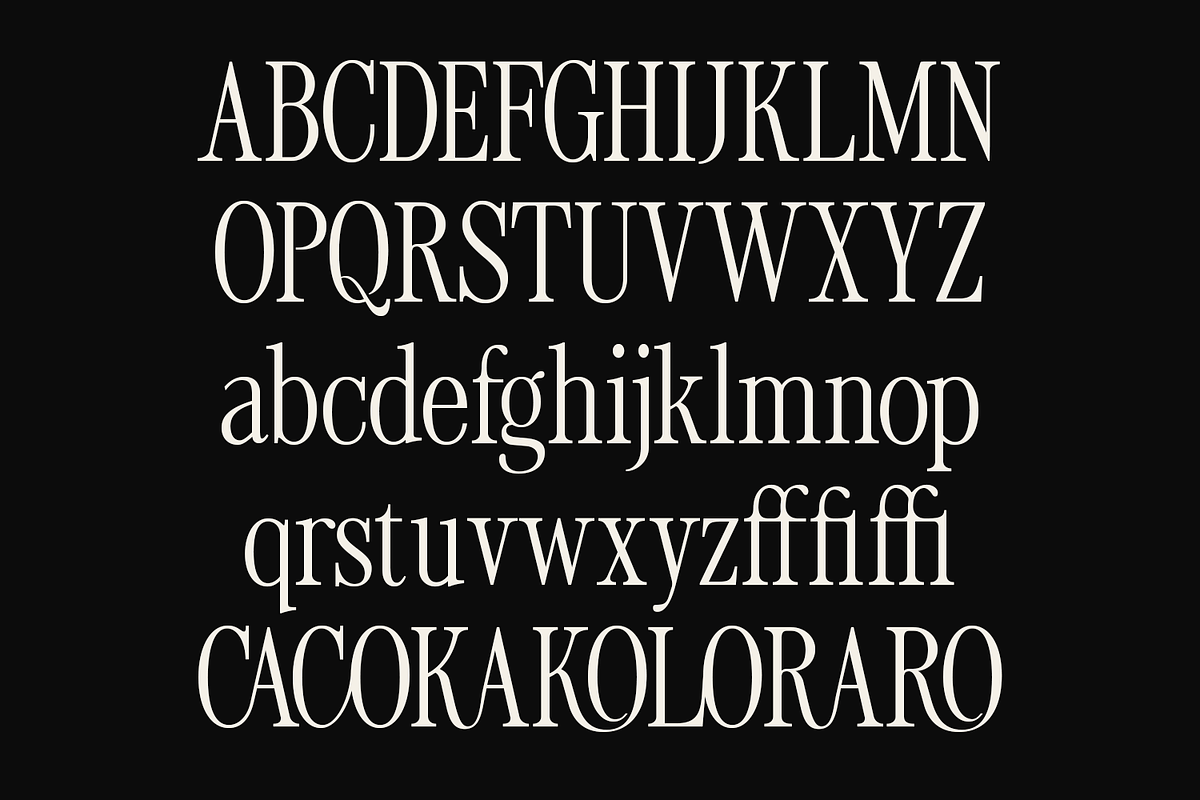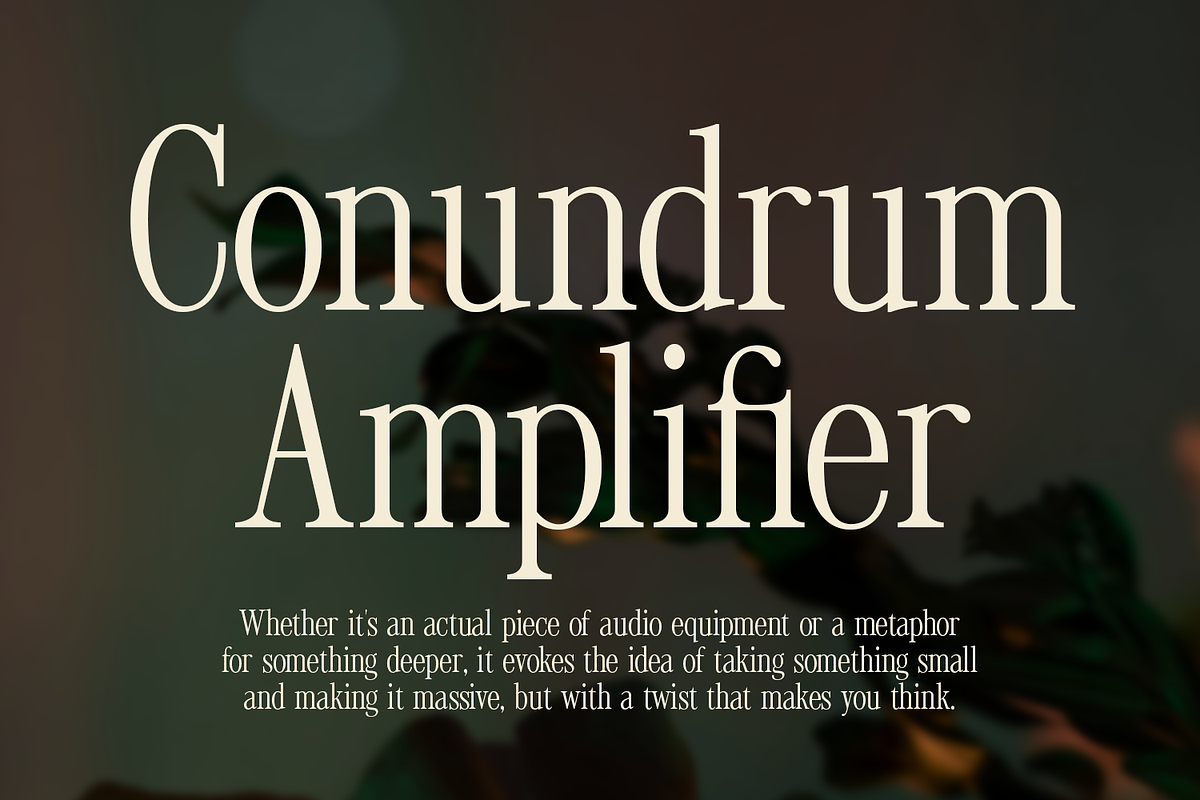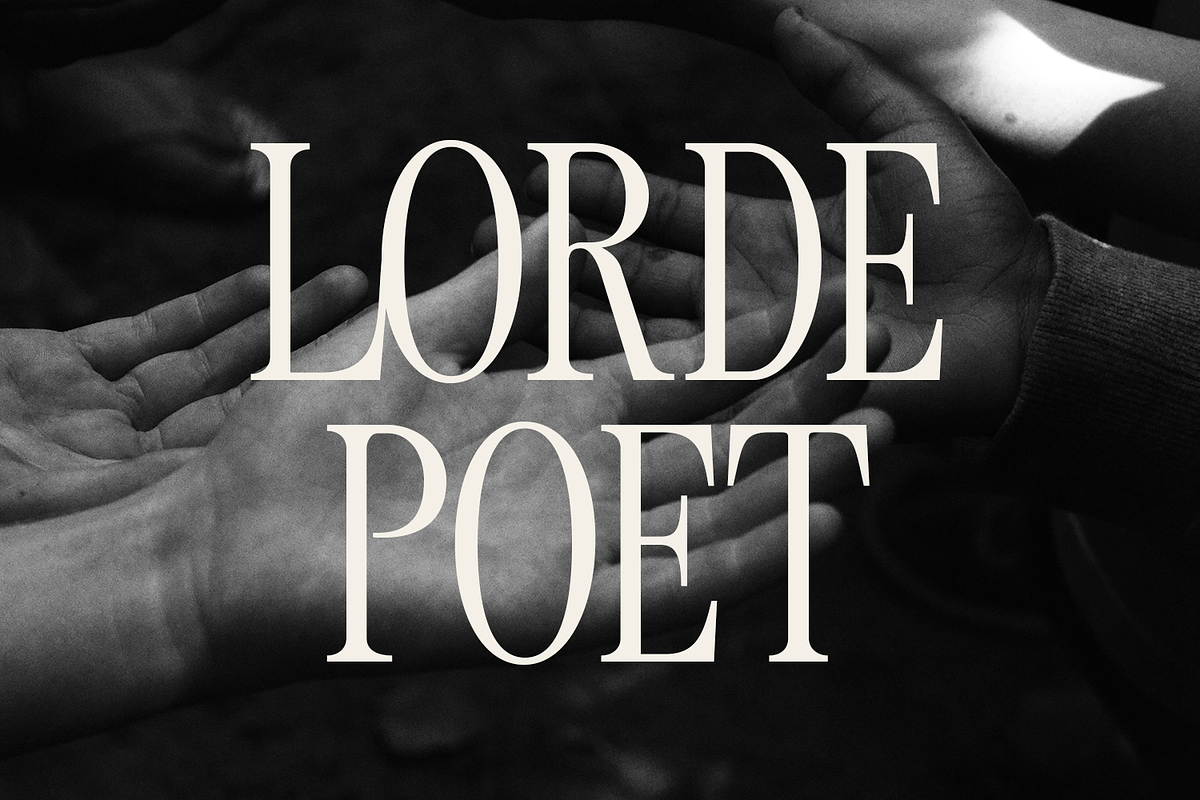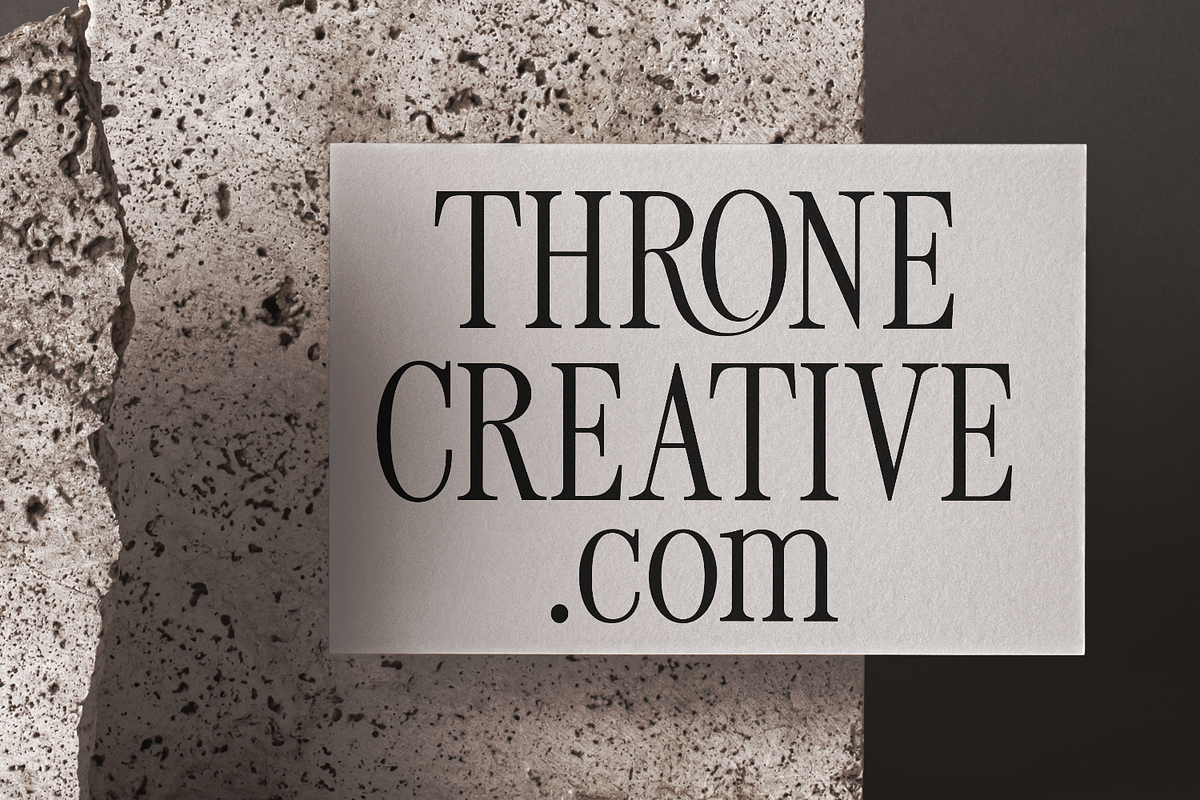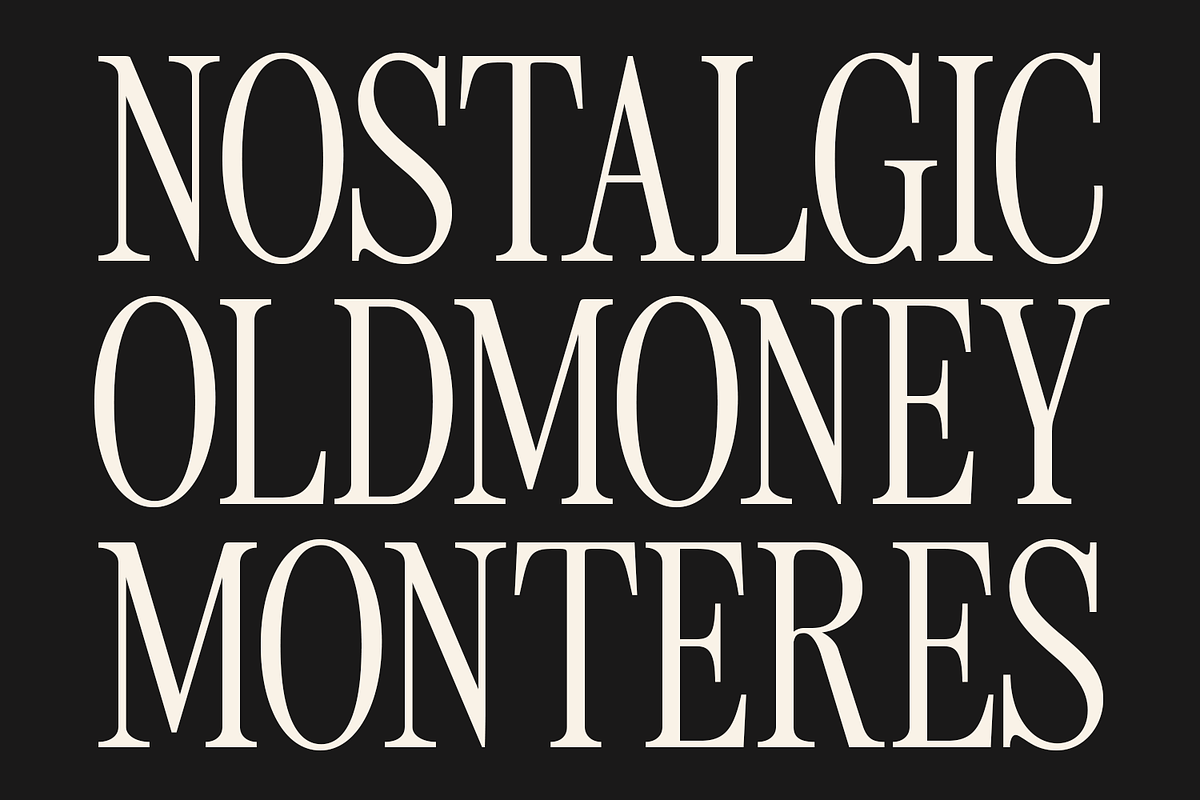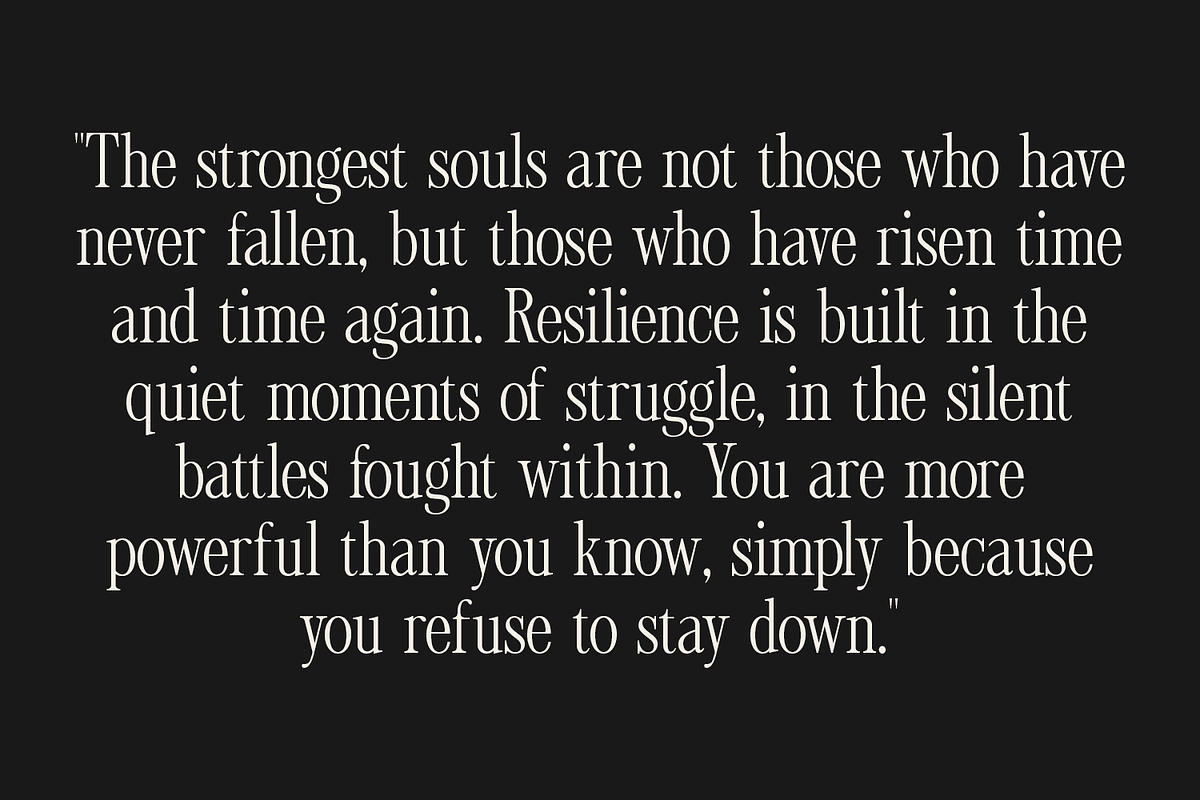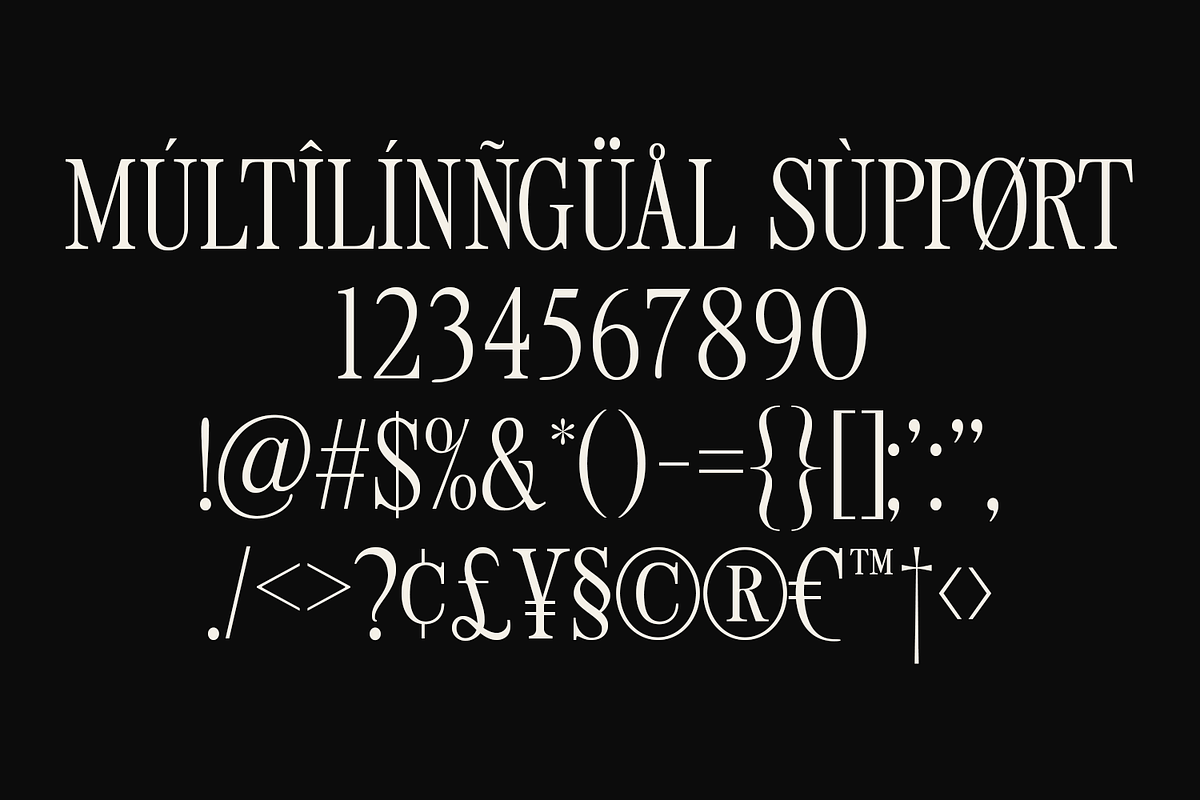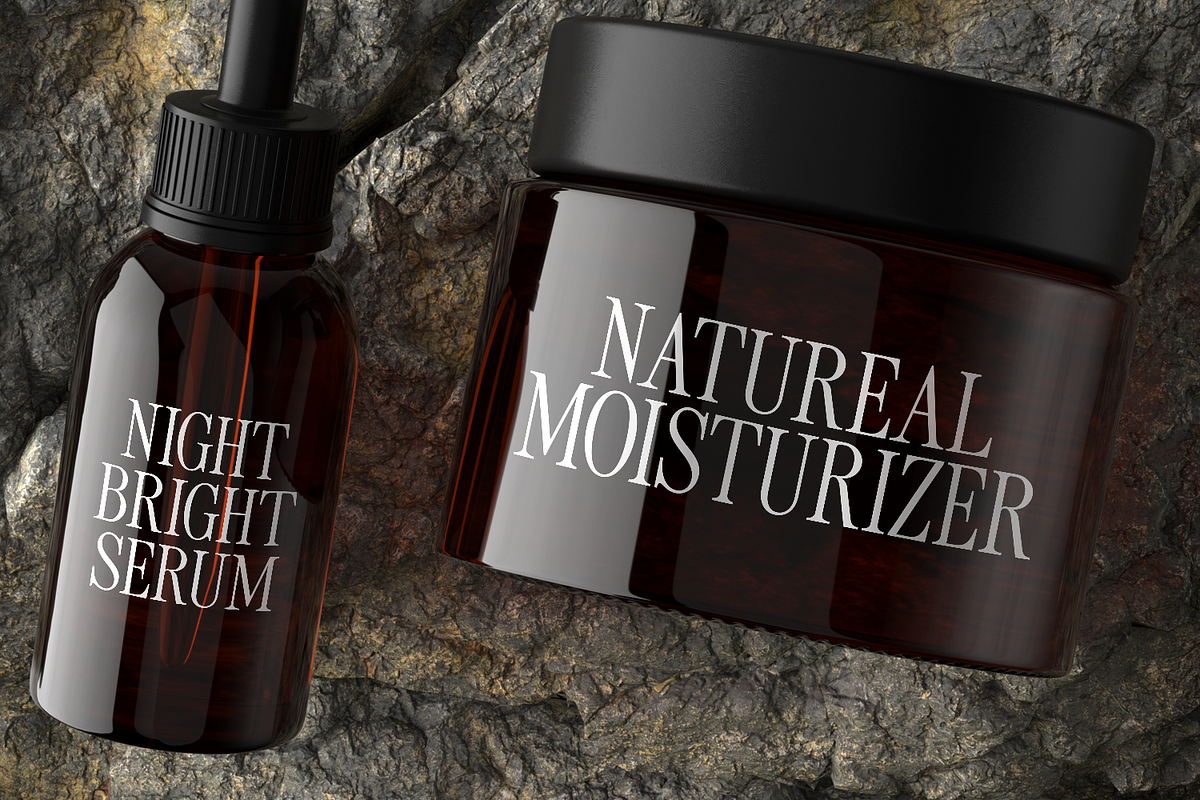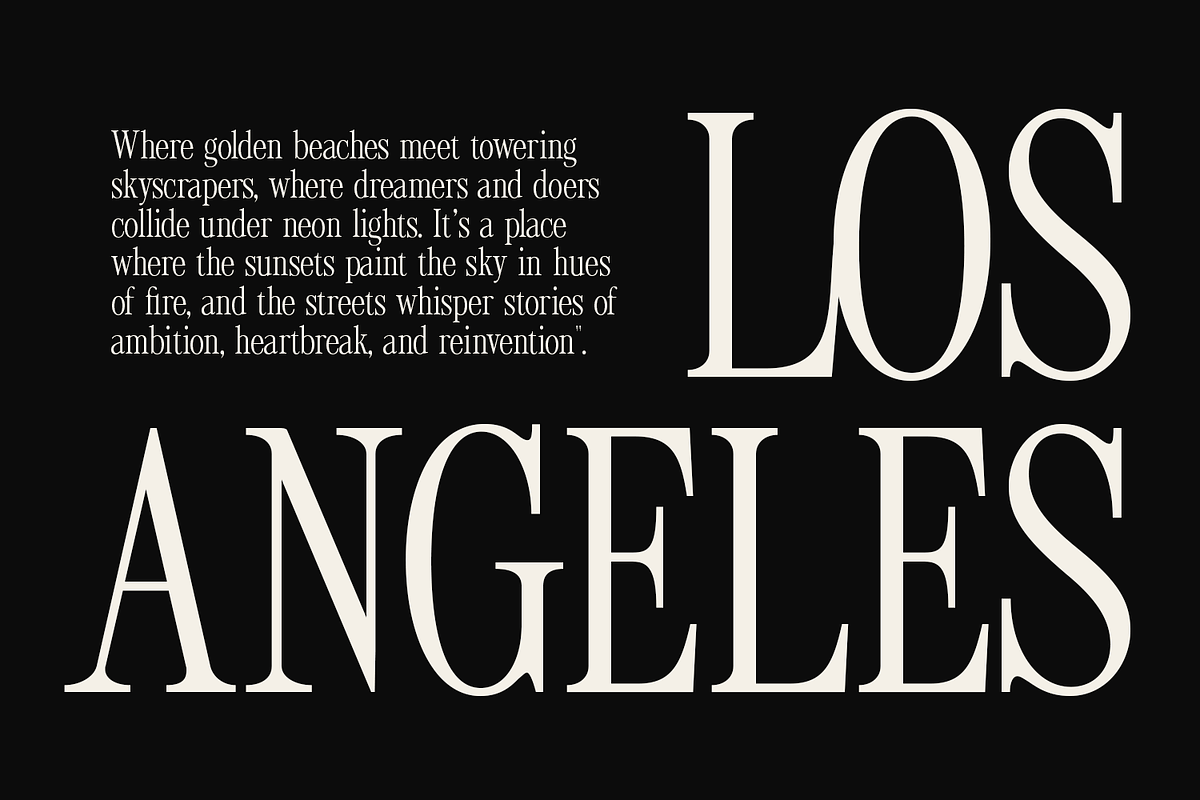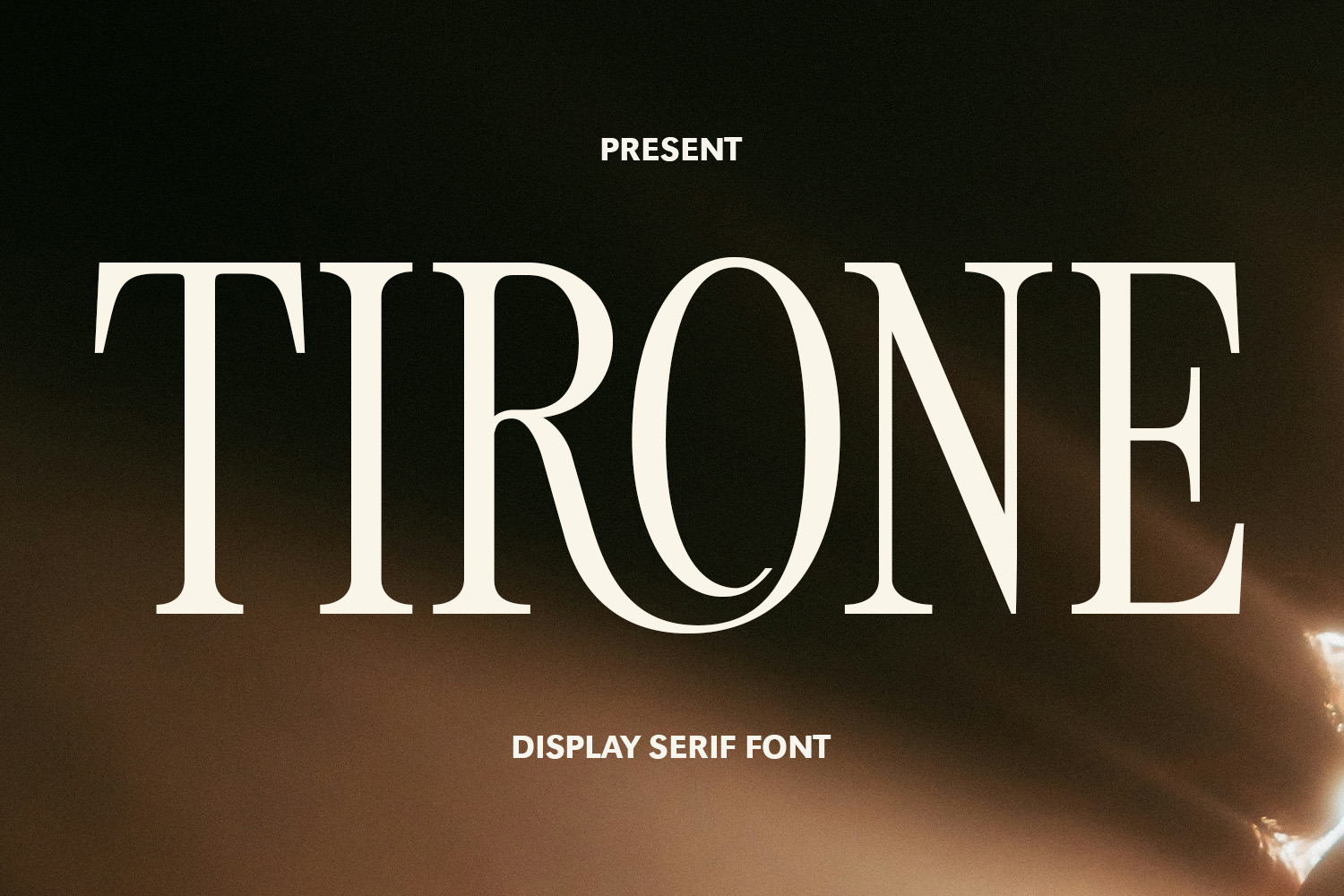
Tirone - Display Serif Font
Tirone is a timeless display serif font that exudes elegance, sophistication, and bold presence, making it perfect for luxury branding, editorial design, and high-end visuals. With high-contrast letterforms, graceful curves, and sharp serifs, it balances classic typography with a modern edge, ensuring versatility across logos, magazine headlines, packaging, and upscale branding. Designed for those who seek refinement and impact, Tirone captures a sense of grandeur while remaining effortlessly stylish. Whether crafting a premium brand identity or an editorial masterpiece, this font leaves a lasting impression. Download Tirone today and elevate your typography with timeless sophistication!